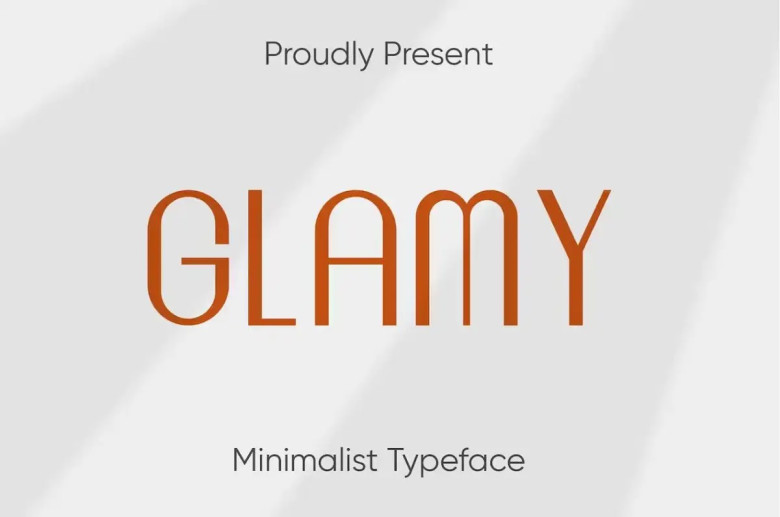
Glamy Font
Glamy Font, This font is ideal for creating social media posts and posters as well as personal projects and branding projects.
Glamy Display Font